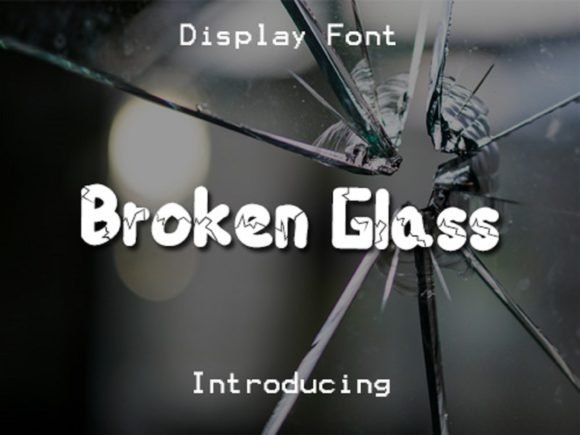
The Perfect Shatter to Your Design: Introducing Broken Glass Font
Have you ever stared at a blank canvas, struggling to find the perfect words to bring your creative vision to life? You’ve got an idea, but the right words just aren’t coming. That’s where the magic of typography comes in – and for designers, a great font can be the game-changer you need.
Enter the Broken Glass Font, a stunning display font that’s sure to elevate any creation. With its unique, shattered glass effect, this font adds a touch of edginess and sophistication to any design. Whether you’re working on a bold advertising campaign, a sleek website, or a visually striking social media post, the Broken Glass Font has the potential to take your project to the next level.
Broken Glass Font Key Features
- Unique Characteristics: The Broken Glass Font features a unique, hand-crafted design with intricate, shattered glass-like textures and effects.
- Font Style: The font comes in a single style, but offers multiple weights and ornaments to add depth and visual interest to your designs.
- Character Set: The font includes a comprehensive character set, including uppercase and lowercase letters, numbers, punctuation, and special characters.
Broken Glass Font Review
At first glance, the Broken Glass Font catches your eye with its unique shattered glass aesthetic ✨. It’s perfect for adding a touch of edginess to your designs, especially for those with a dark or futuristic theme. The font’s bold and broken texture makes it stand out, and it’s definitely a great conversation starter.
One of the things that works well for this font is its versatility ✨. It can be used for a variety of projects, from posters and flyers to digital interfaces and even fashion branding. The font’s broken glass texture also lends itself well to creative arrangements and compositions.
However, there are some limitations to consider ⚠️. The font may not be suitable for projects that require a more polished or refined look. Additionally, the font’s broken texture may not be ideal for large blocks of text, as it can become overwhelming and difficult to read.
Here are some things to keep in mind when working with Broken Glass Font:
- Use it sparingly to avoid overwhelming the design.
- Pair it with a clear, easy-to-read font for body text.
- Experiment with different arrangements and compositions to make the most of the font’s unique texture.
Overall, Broken Glass Font is a great addition to any designer’s toolkit. With its unique aesthetic and versatility, it’s sure to add a touch of creativity and edge to your designs. Just be mindful of its limitations, and you’ll be well on your way to creating stunning designs with this font.
Broken Glass Font: A Practical Application Guide
The Broken Glass Font is ideal for:
- Creating a distressed or vintage look.
- Designing a grunge or industrial-themed project.
- Adding a touch of edginess to a logo or branding.
To get the most out of the Broken Glass Font, try the following:
- Experiment with different font sizes and colors to achieve the desired effect.
- Choose a quote or phrase to be displayed prominently in the center of the wall art.
- Use Broken Glass Font to typeset the text in a bold, eye-catching font style.
- Arrange the broken glass fragments and abstract shapes around the text to create a visually striking composition.
- Mix and match different textures, such as glass, metal, and wood, to add depth and interest to the composition.
Project 1: Broken Glass Typography Wall Art
Create a unique wall art piece by combining Broken Glass Font with a collage of broken glass fragments and abstract shapes. This project requires creativity and experimentation with different textures and colors.
To use Broken Glass Font in this project:
Project 2: Broken Glass Social Media Graphics
Create eye-catching social media graphics using Broken Glass Font to add a touch of elegance and sophistication to your online presence.
To use Broken Glass Font in this project: